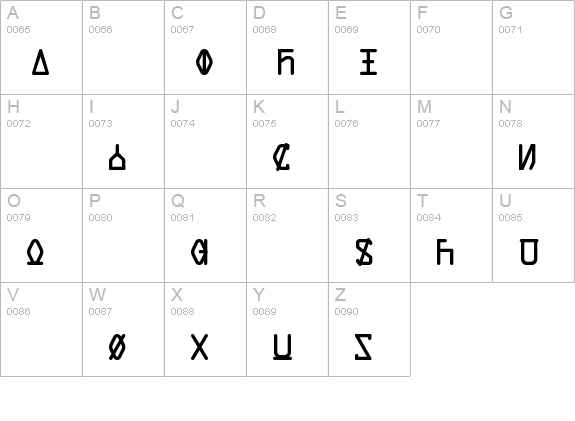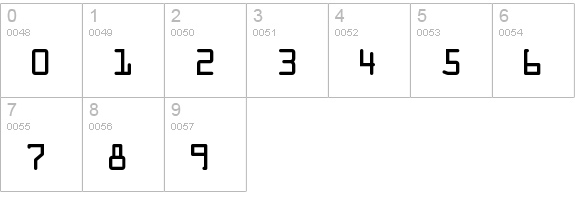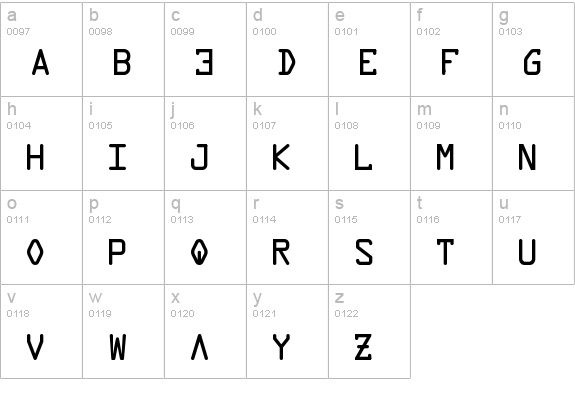
The Data Control Unifon font is a sleek and modern typeface designed for users who appreciate a clean and professional look. With its precise lines and geometric shapes, this font exudes a sense of reliability and efficiency. Perfect for use in data-driven projects, technical documents, or any design that requires a futuristic touch. What sets the Data Control Unifon font apart is that it is not only stylish and functional but also completely free to download. You can easily access this versatile typeface at FontsMarket.com, where it is available for free download in a variety of formats. Don't miss out on the opportunity to enhance your projects with the Data Control Unifon font and elevate your design to the next level.